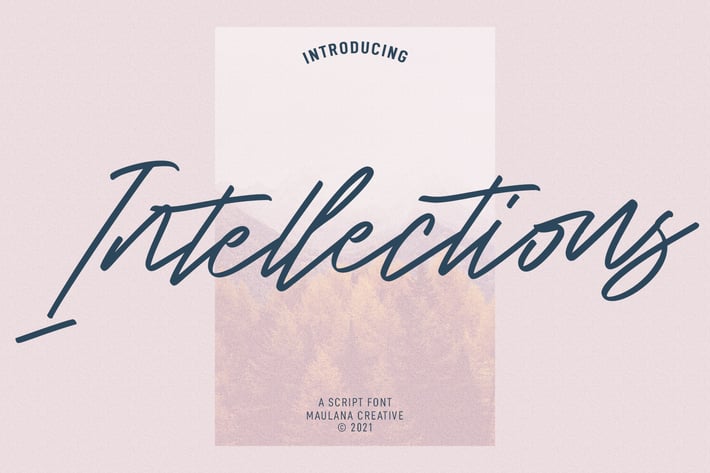
Intellections Signature Script Font
Intellections is a signature script font. With regular felt-tip stroke, fun character with a bit of ligatures and lowercase alternates. To give you an extra creative work. Intellections font support multilingual more than 100+ language. This font is good for logo design, Social media, Movie Titles, Books Titles, a short text even a long text letter and good for your secondary text font with sans or serif. Make a stunning work with Intellections font.